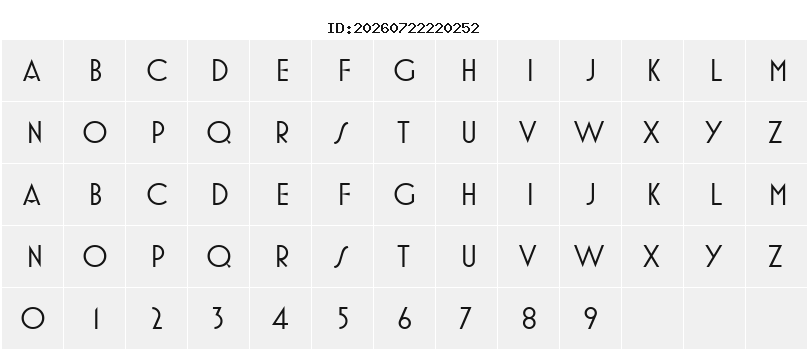
• Font Name: MostraTwo
• Full Font Name: MostraTwo
About MostraTwo.ttf
MostraTwo.ttf is a modern, elegant sans-serif font designed for ultimate readability and visual harmony. Perfect for branding, headlines, web design, and print materials.